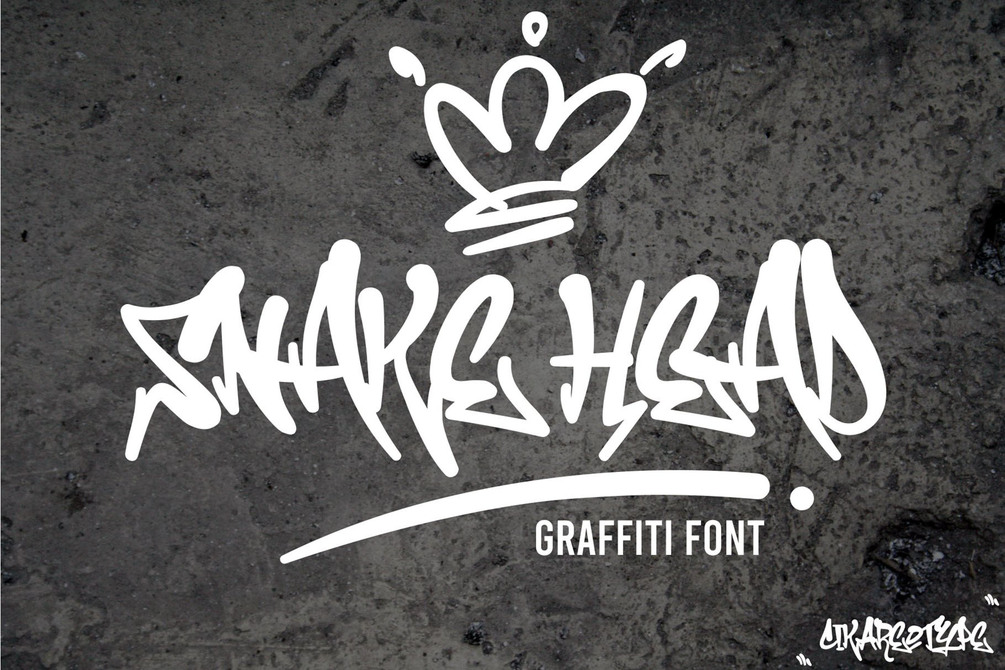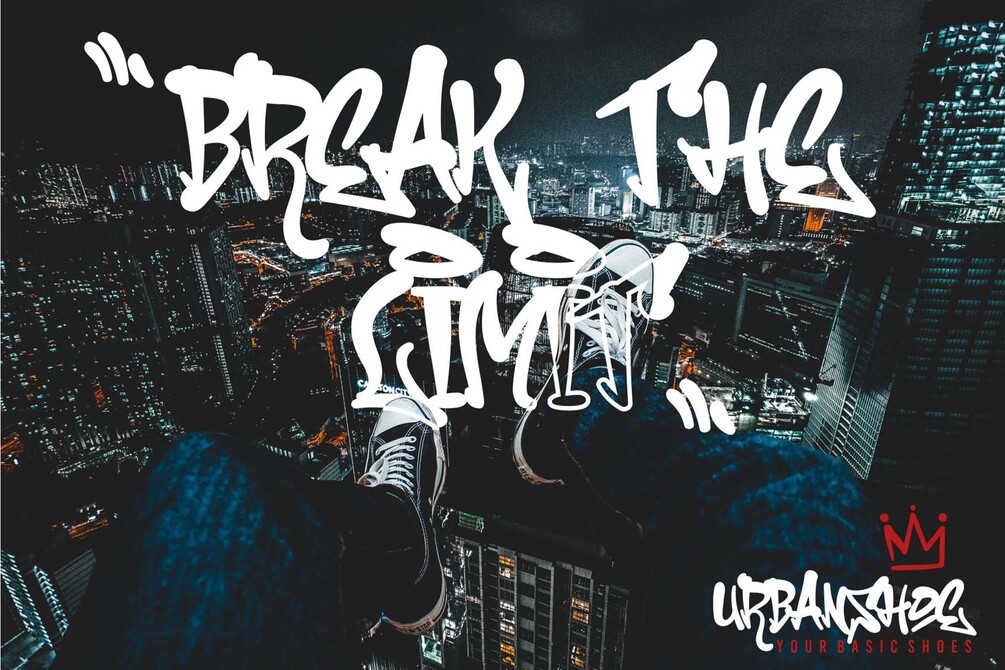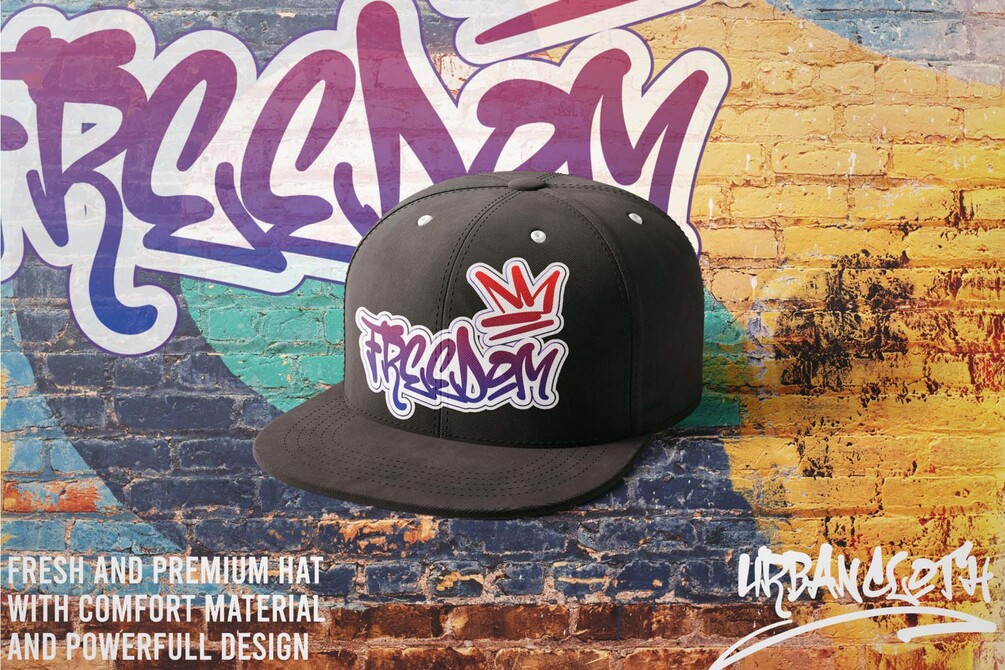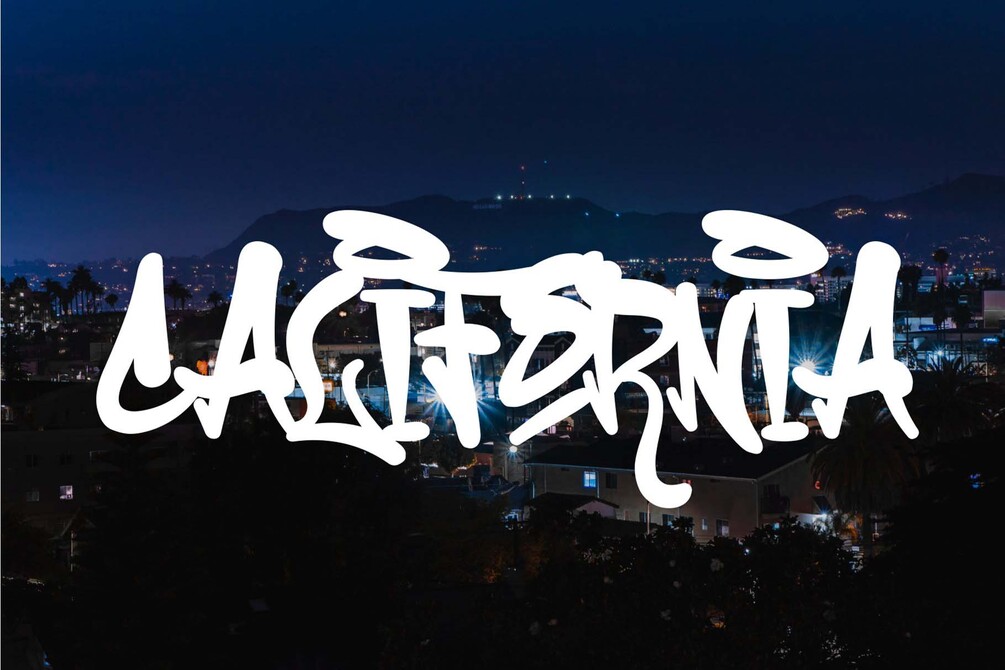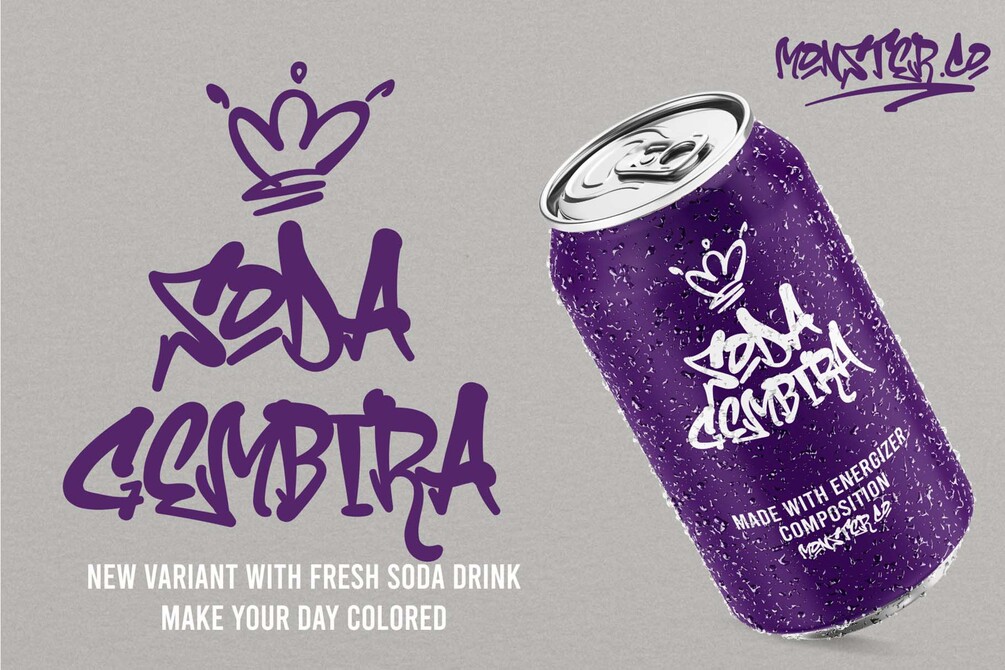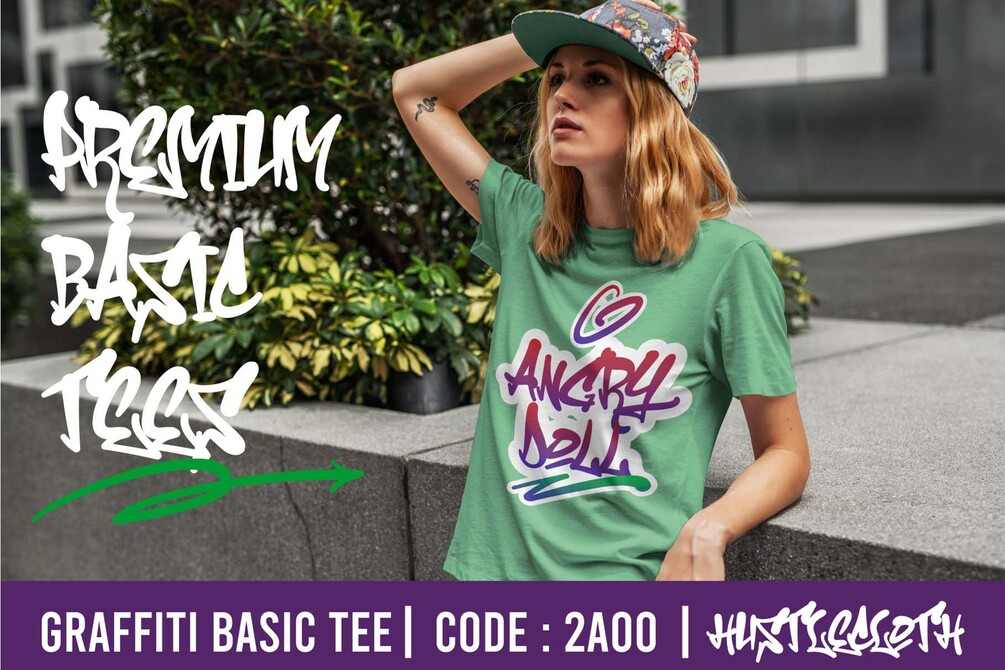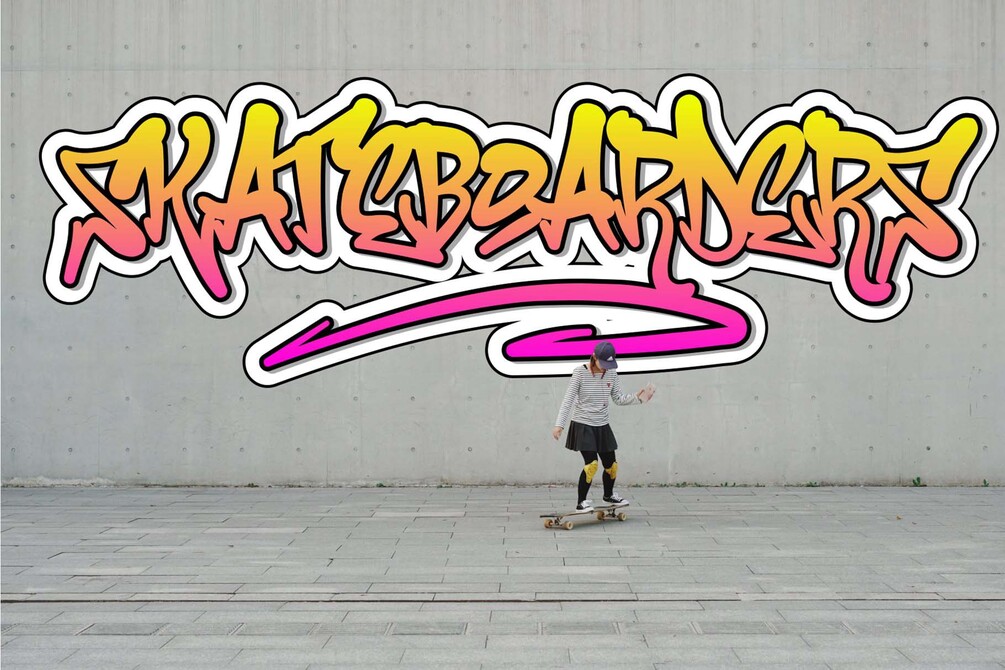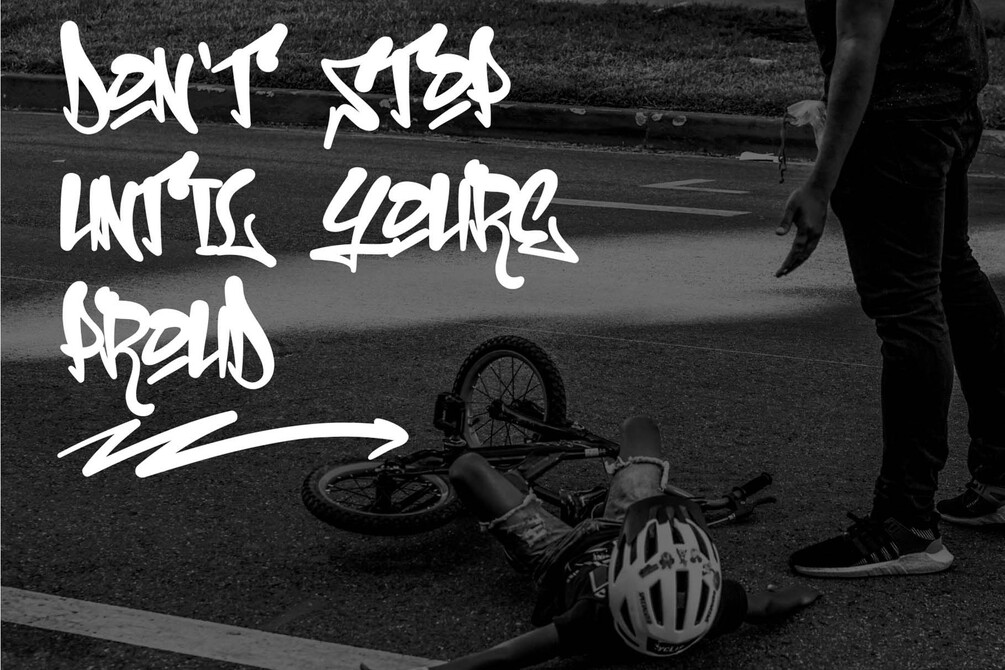
Snake head is a script font with a graffiti look. cool to be use in various types of designs, with several choices of characters and various kinds of swashes, so that your design looks powerful, this font is sutable for branding, clothing, logotype, packaging, advertising, crafting, and various other designs.
Feature :
• Uppercase
• Lowercase
• Number and Punctuation
• Multilingual
• Stylistic Alternates
• Swash